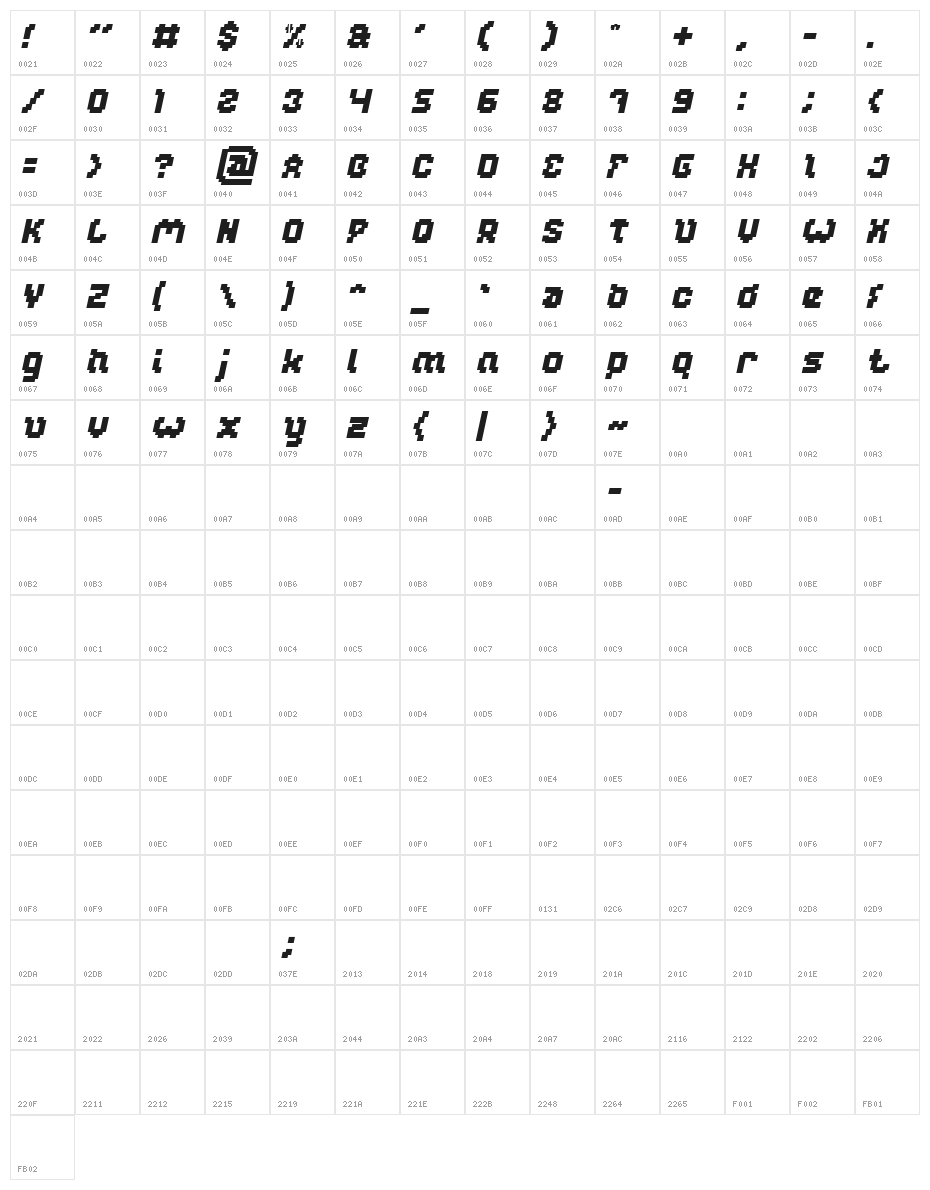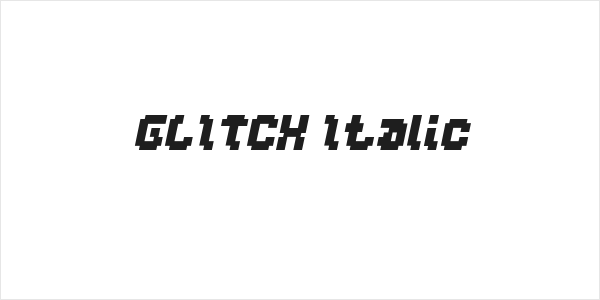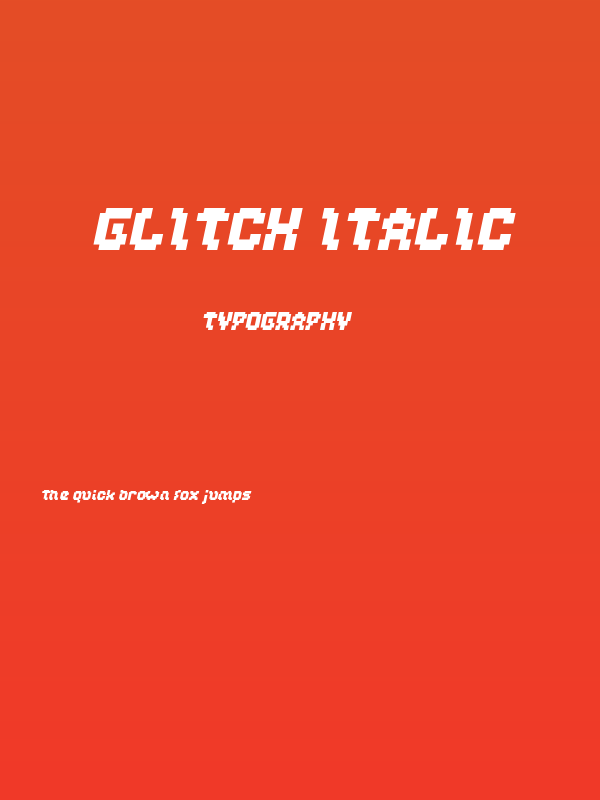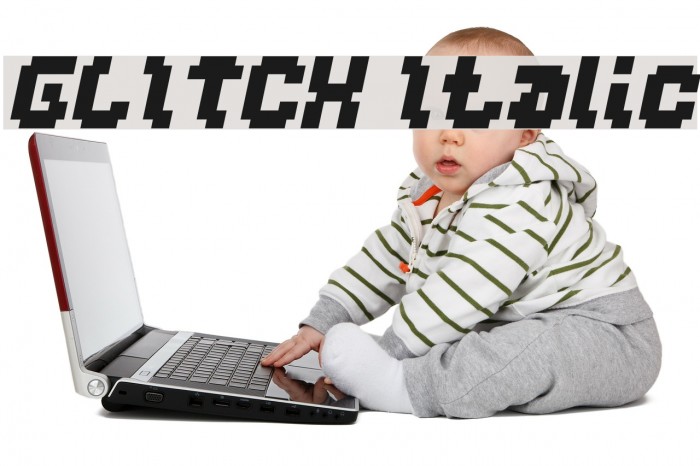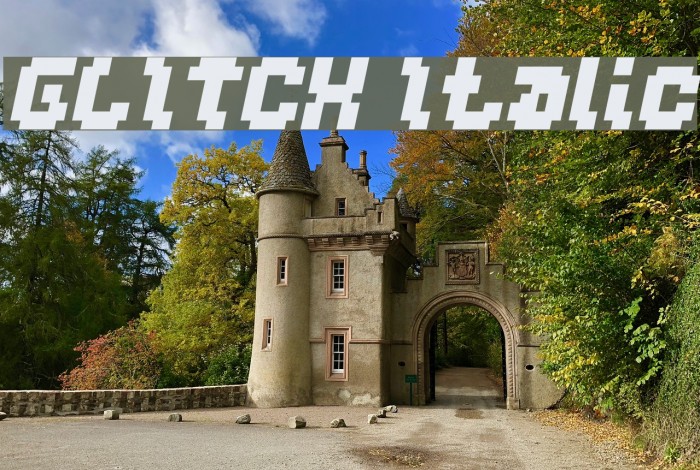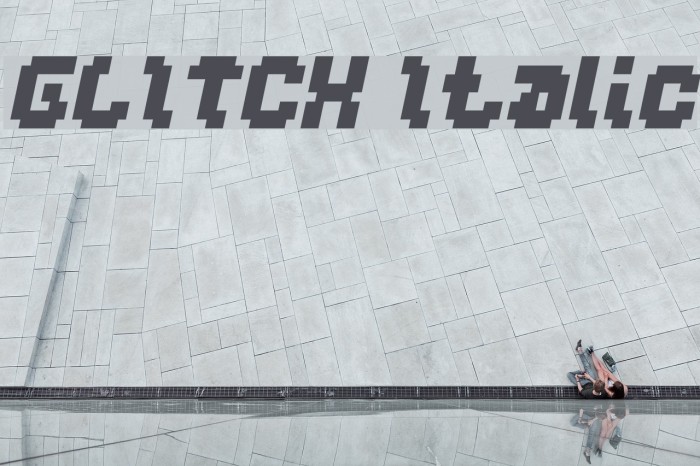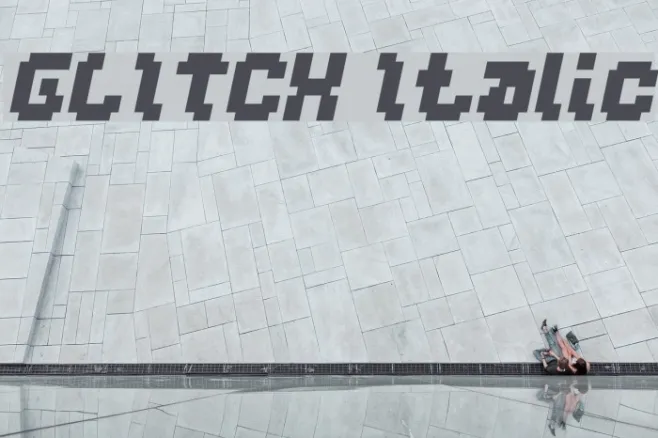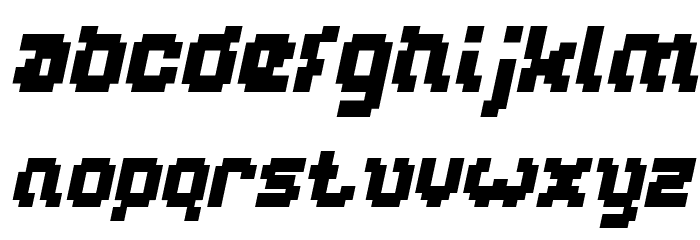
GLITCH Italic Font
GLITCH Italic Description
This font features a bold, pixelated design with an italic slant, reminiscent of retro digital displays and glitch art. Each character is constructed with sharp, blocky edges, creating a sense of movement and dynamic energy. The uppercase and lowercase letters maintain a consistent style, with the lowercase slightly smaller but equally bold. Numbers and special characters follow the same aesthetic, ensuring uniformity across the font. The overall appearance is striking and unconventional, making it ideal for projects that require a futuristic or tech-inspired look.
| Overall Style | Modern, Futuristic |
| Proposed Projects | Ideal for video game titles, tech-themed posters, digital art projects, and any design that requires a futuristic or glitch-inspired look. |